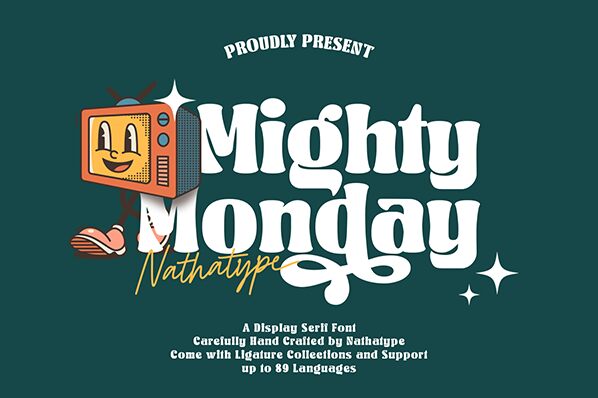
Mighty Monday
Mighty Monday font by Nathatype is inspired by retro typography and well-suited for a wide array of modern visual applications. Thick strokes, dynamic curves, rounded edges, and chunky serifs; it has all the qualities that dominate every design it gets featured in. Presented as a free font to try in personal projects, this typeface combines elements from the past with contemporary trends to give an exciting thick-lettered type ideal for your next designs.
Furthermore, this playful bold display has many other useful features such as binding ligatures and stylistic alternates. Use it to elevate your album covers, posters, magazine covers/titles/headings, logos/branding material & more.